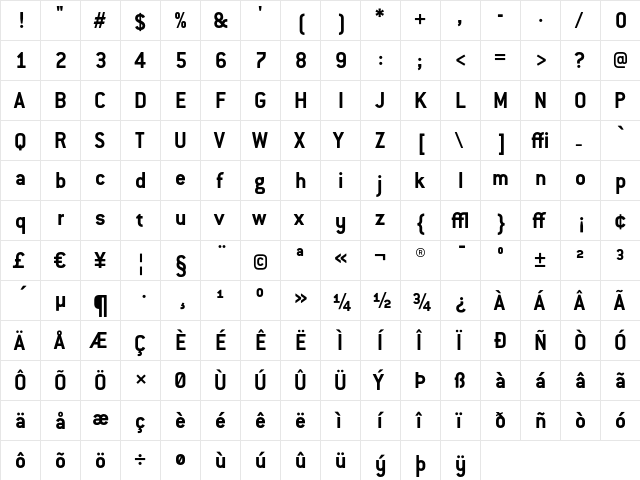
ConduitITC Bold
Design Context for ConduitITC Typeface
ConduitITC offers clean, dependable letterforms without strong stylistic allegiance, making it a practical choice for designers who need flexibility. Its bold stroke weight gives it real presence on the page. Its narrow stance lets it pack a punch even in space-constrained designs.